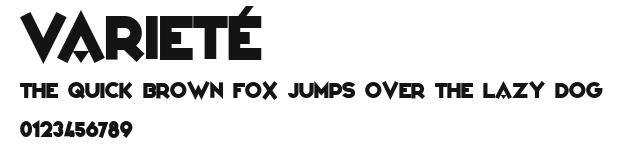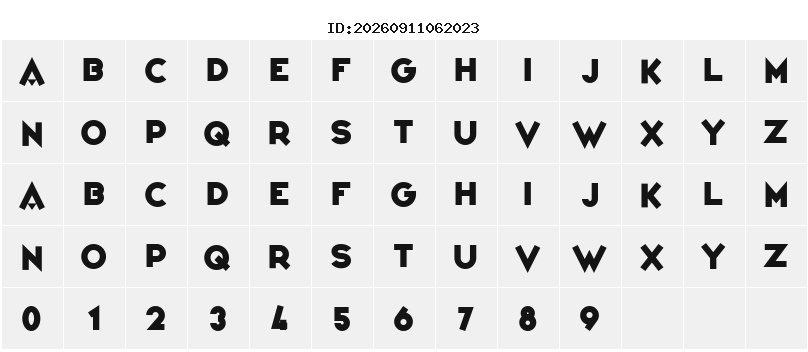
• Font Name: Varieté
• Font ID: PeterWiegel: Varieté: 2009
• Full Font Name: Varieté
• Designer: Peter Wiegel
• Manufacturer: Peter Wiegel
About Varieté.ttf
Varieté.ttf is a modern, elegant sans-serif font designed for ultimate readability and visual harmony. Perfect for branding, headlines, web design, and print materials.